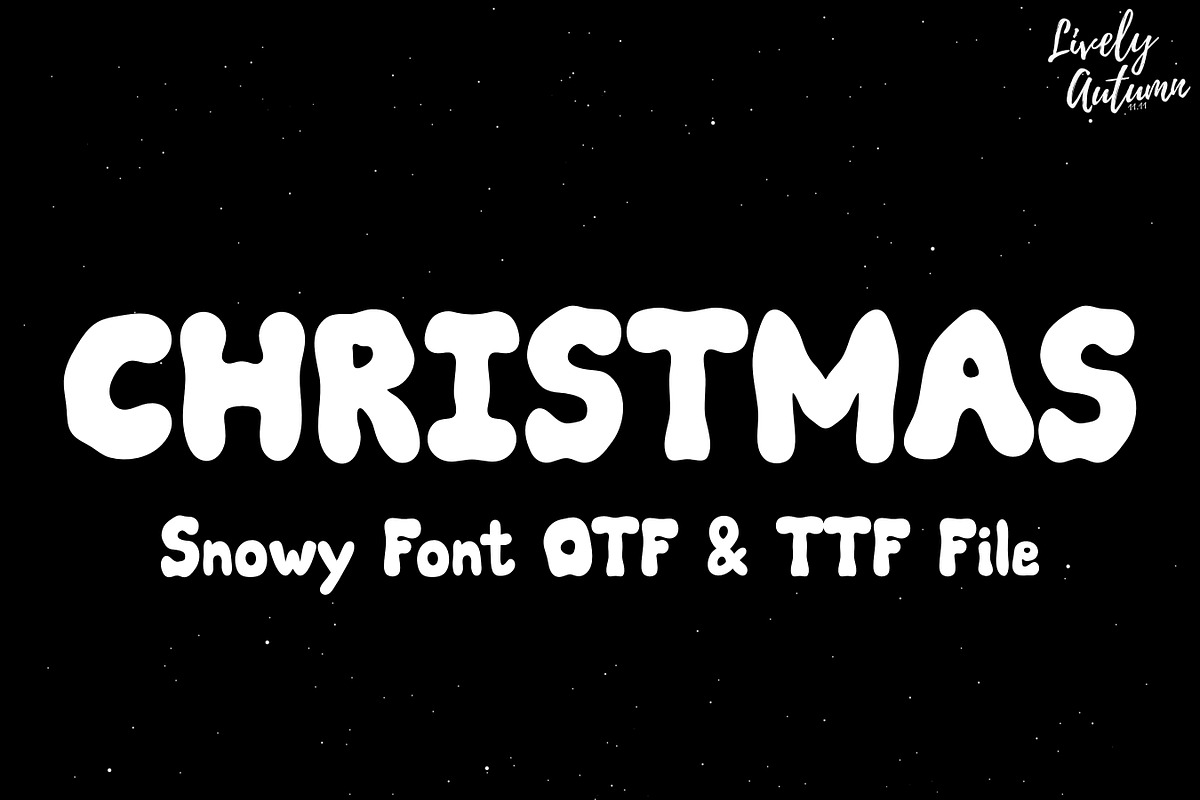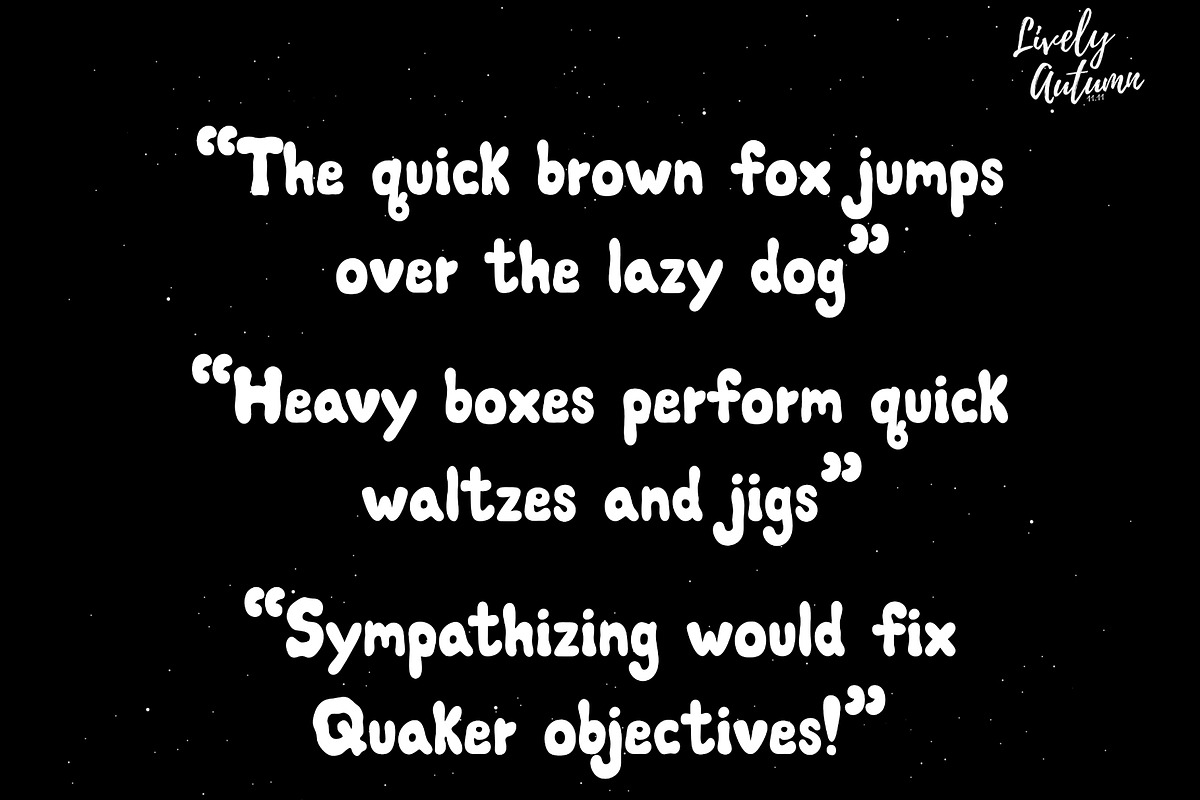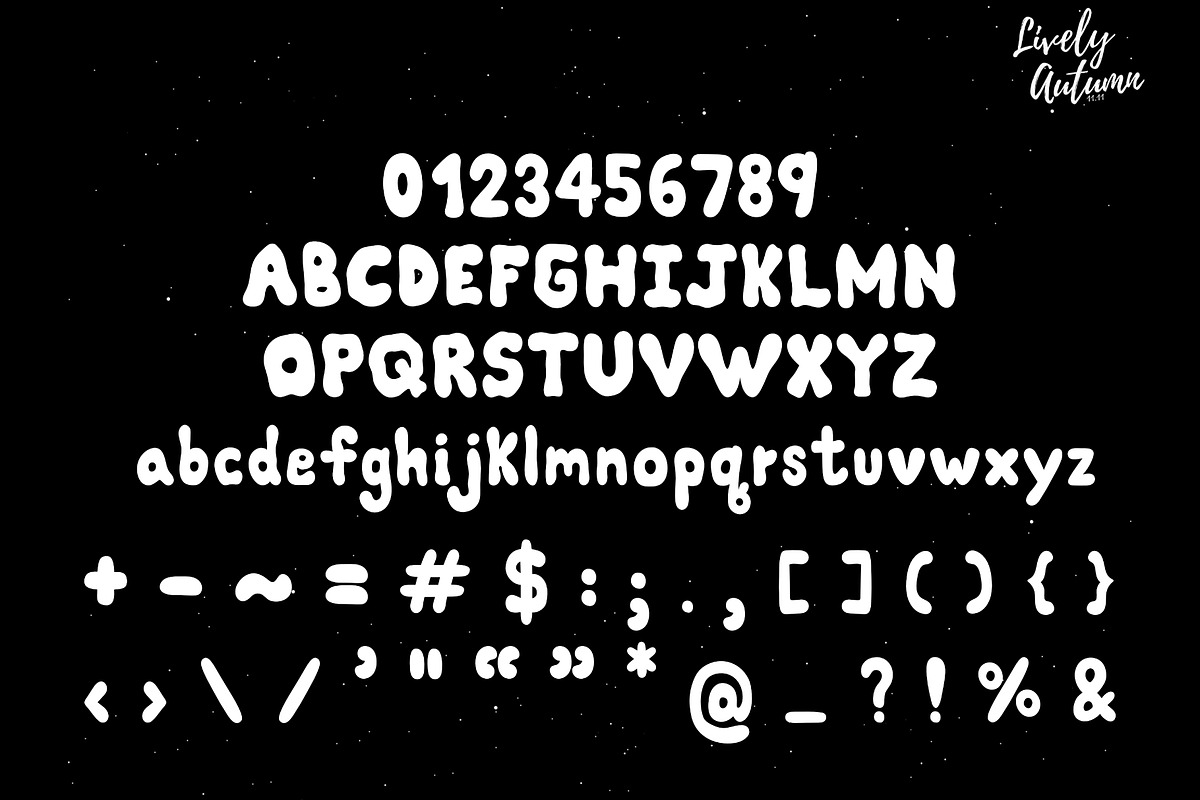
Snowy Font
Snowy Font is a fluffy, snowlike, fancy decorative font. Perfect for your winter and Christmas-themed projects. From invitations to posters, social media graphics, and more.
- Font includes: uppercase, lowercase, numbers, and symbols